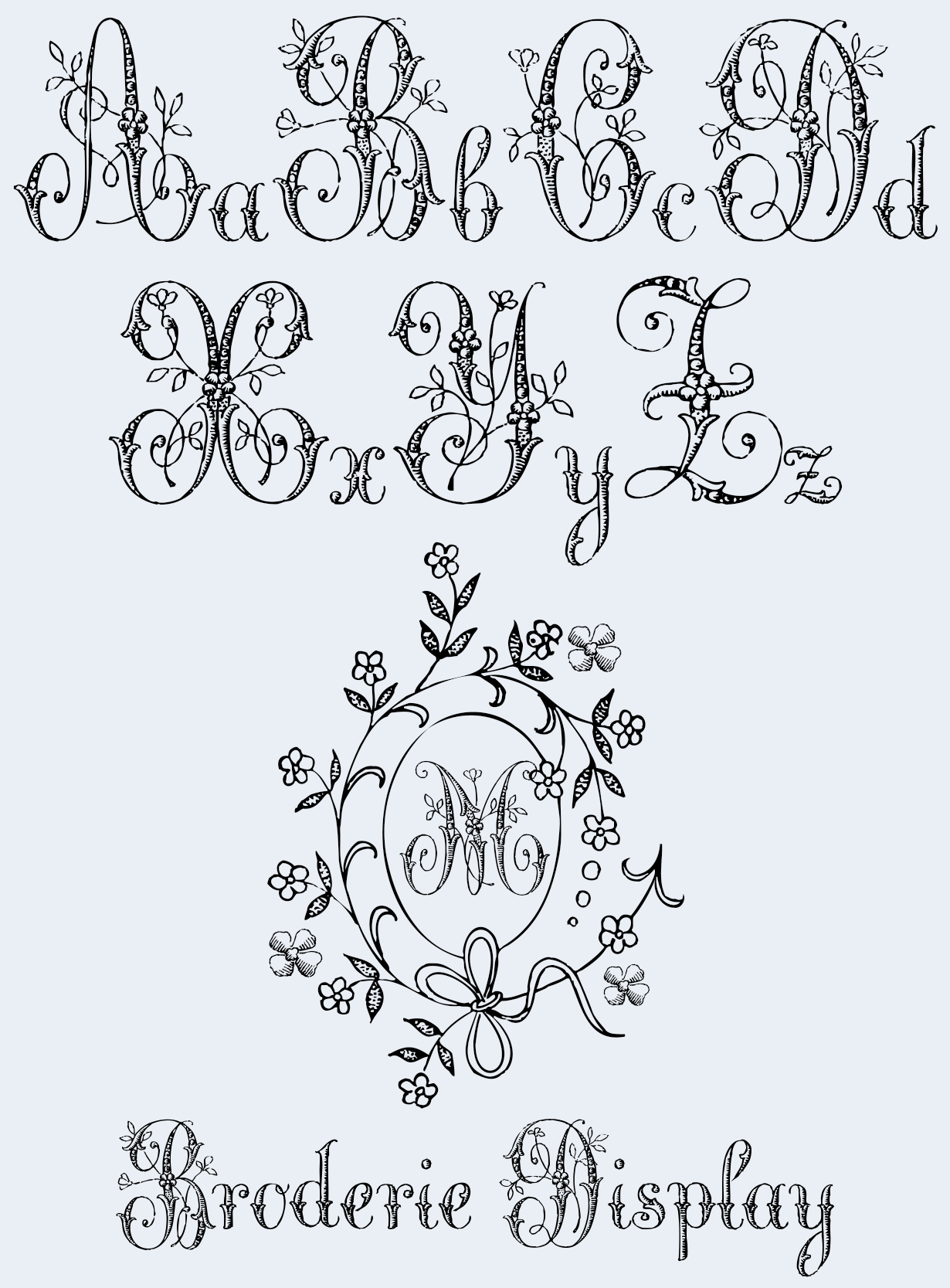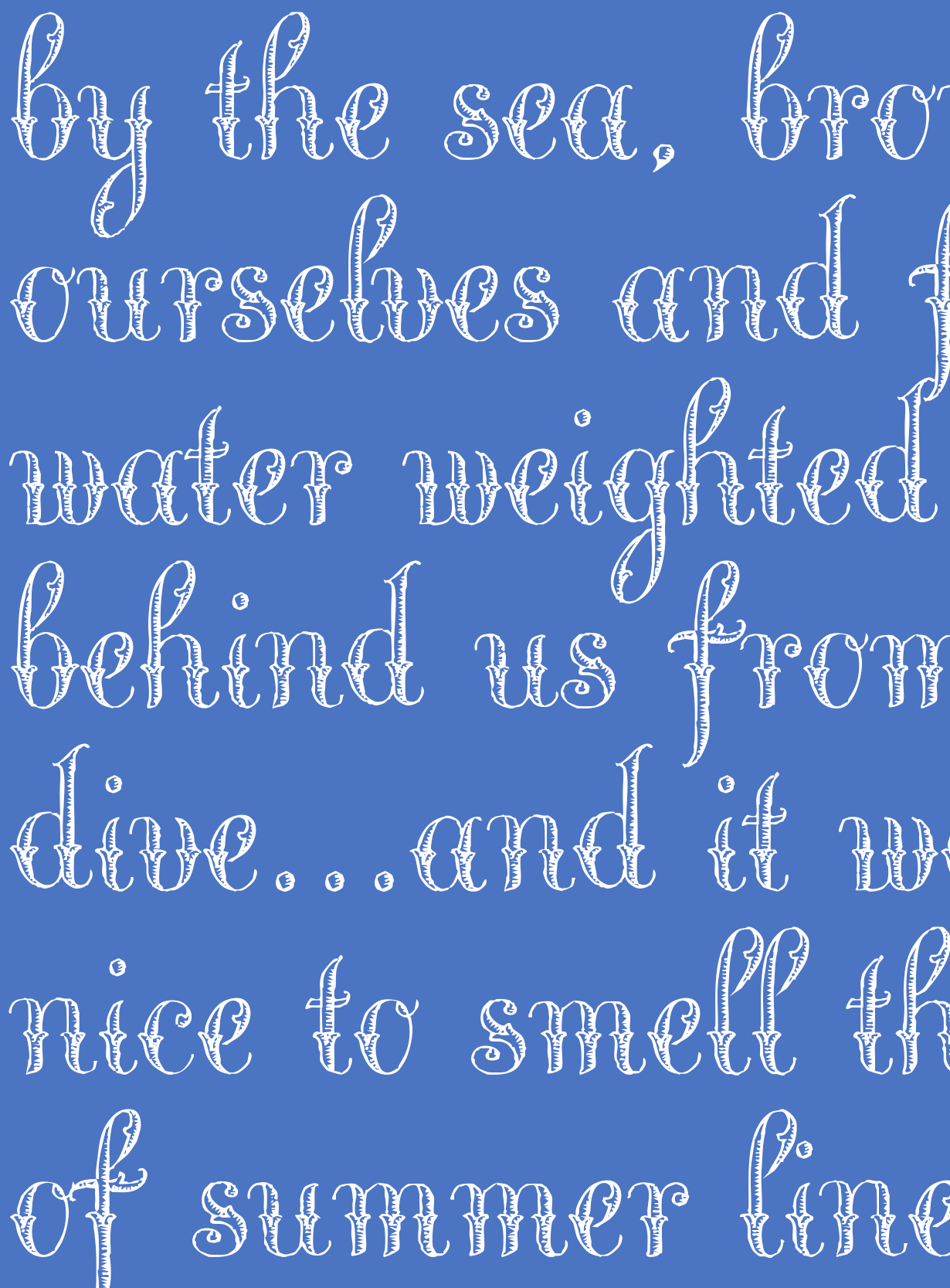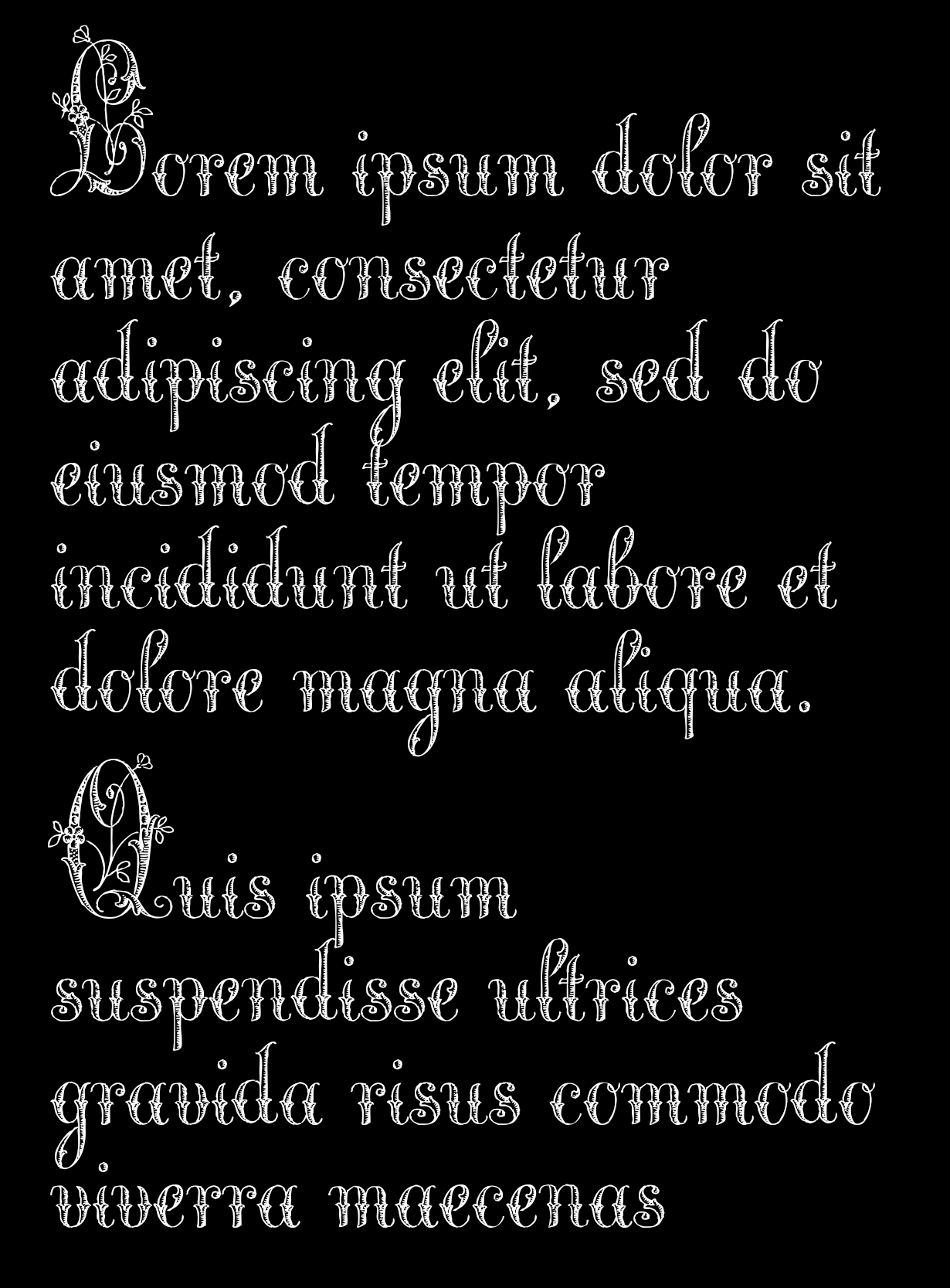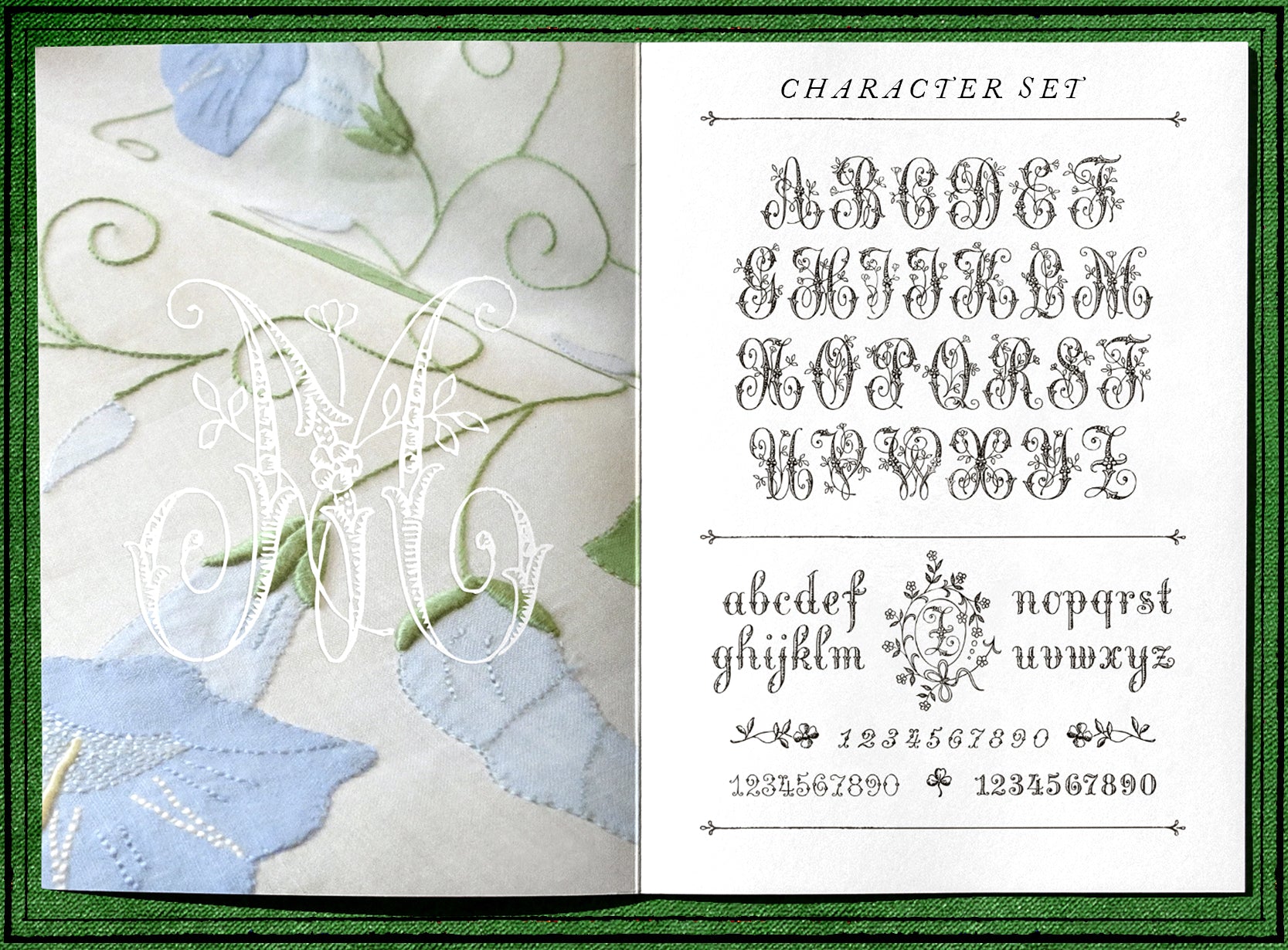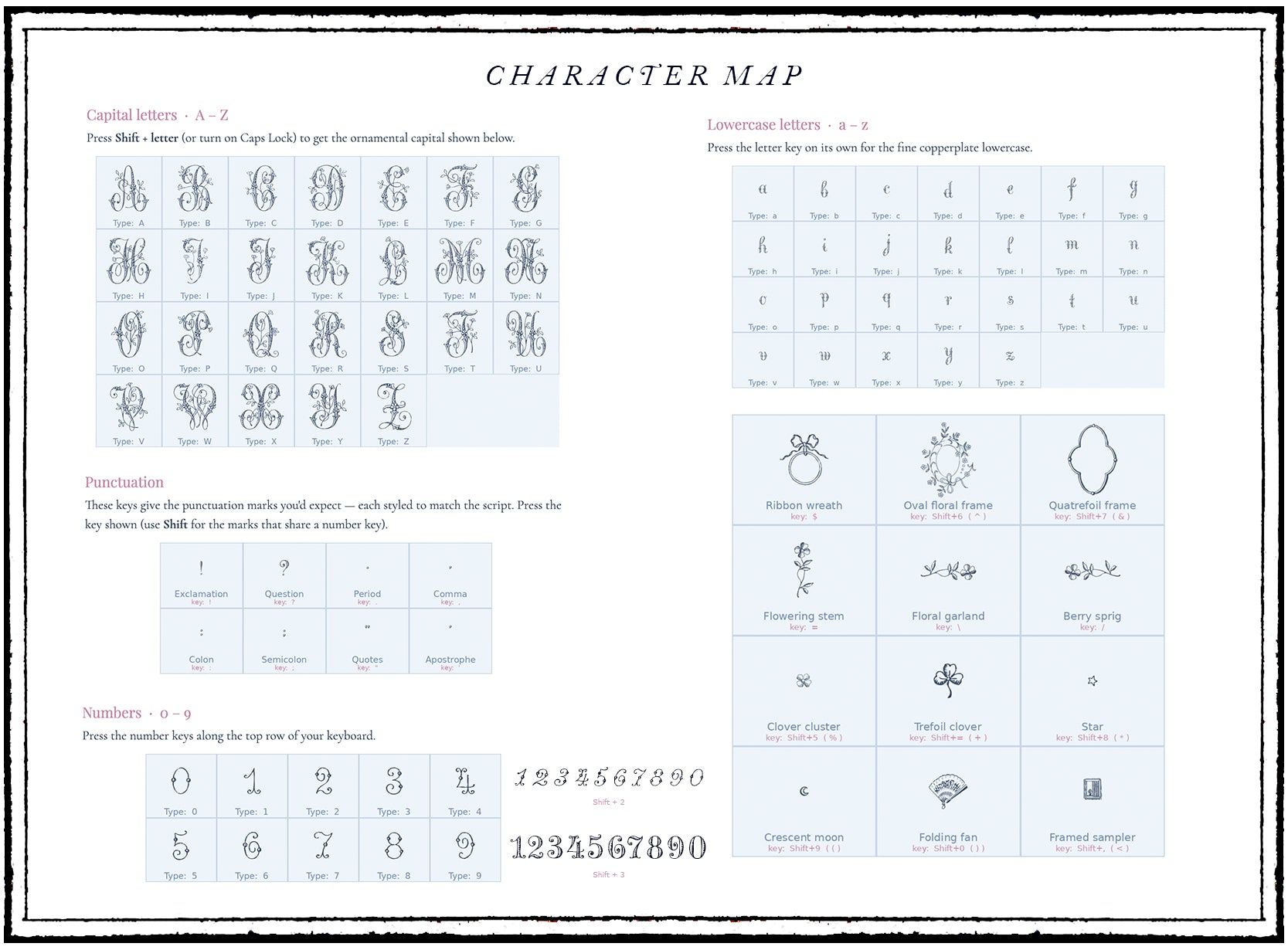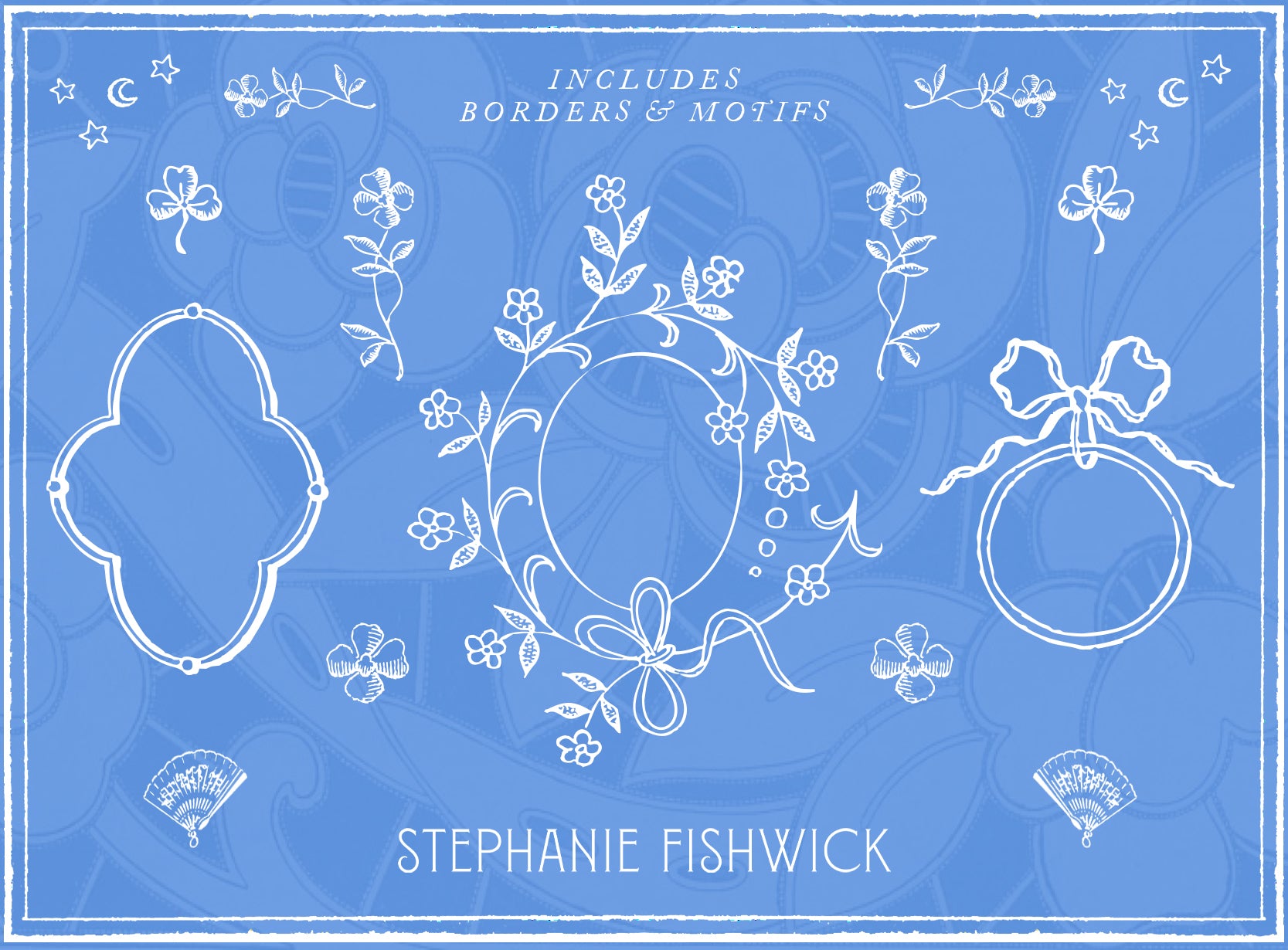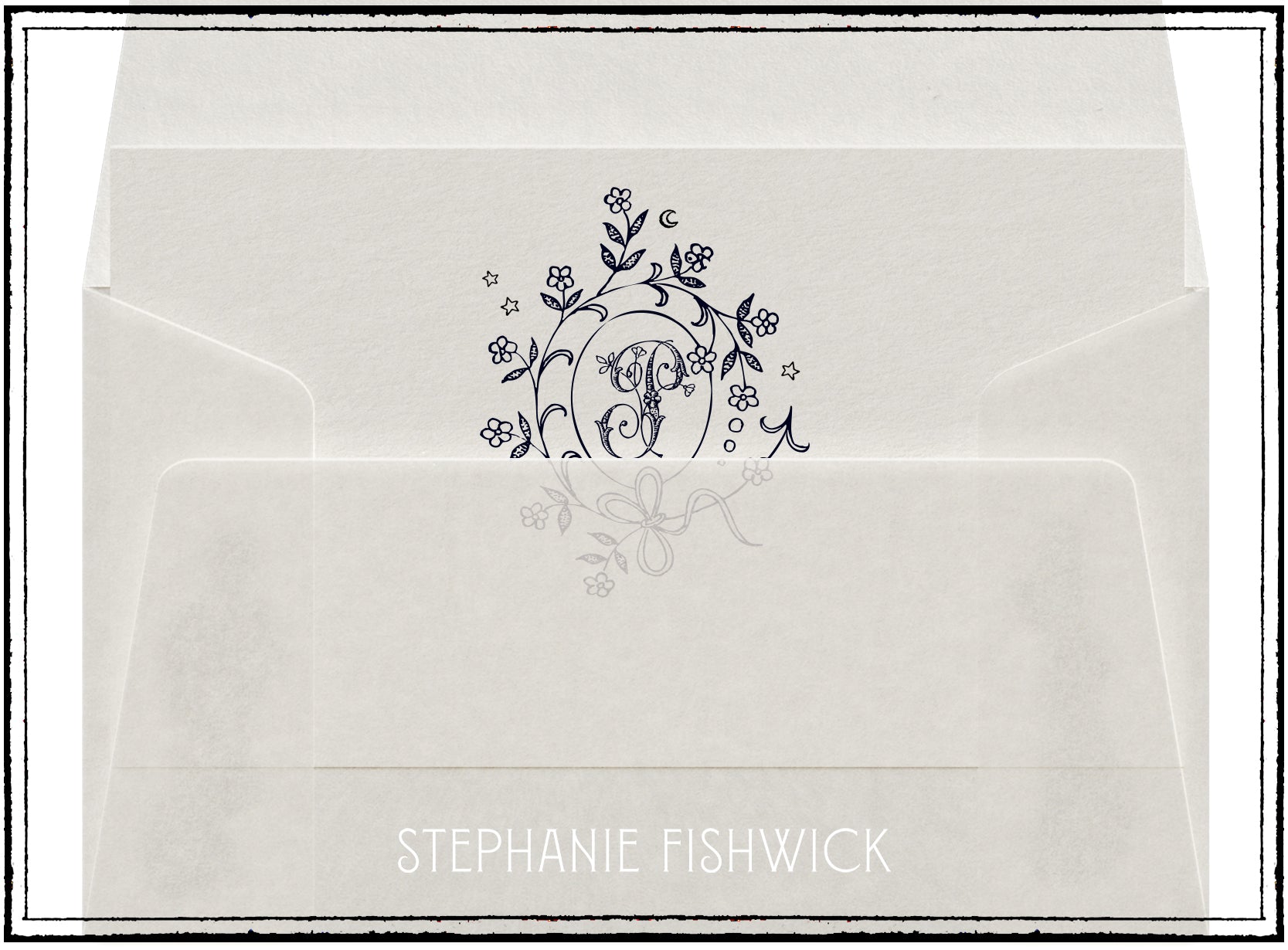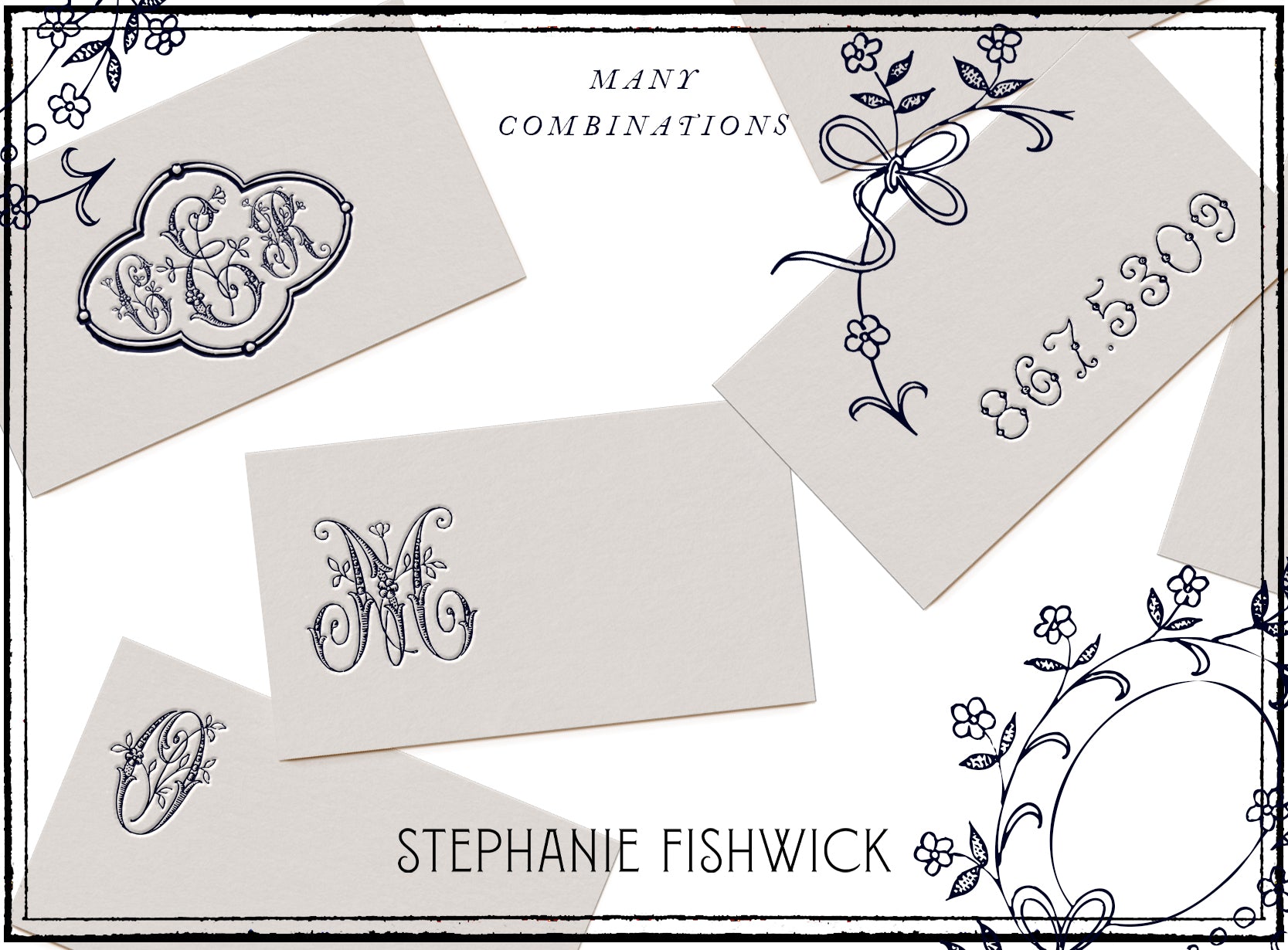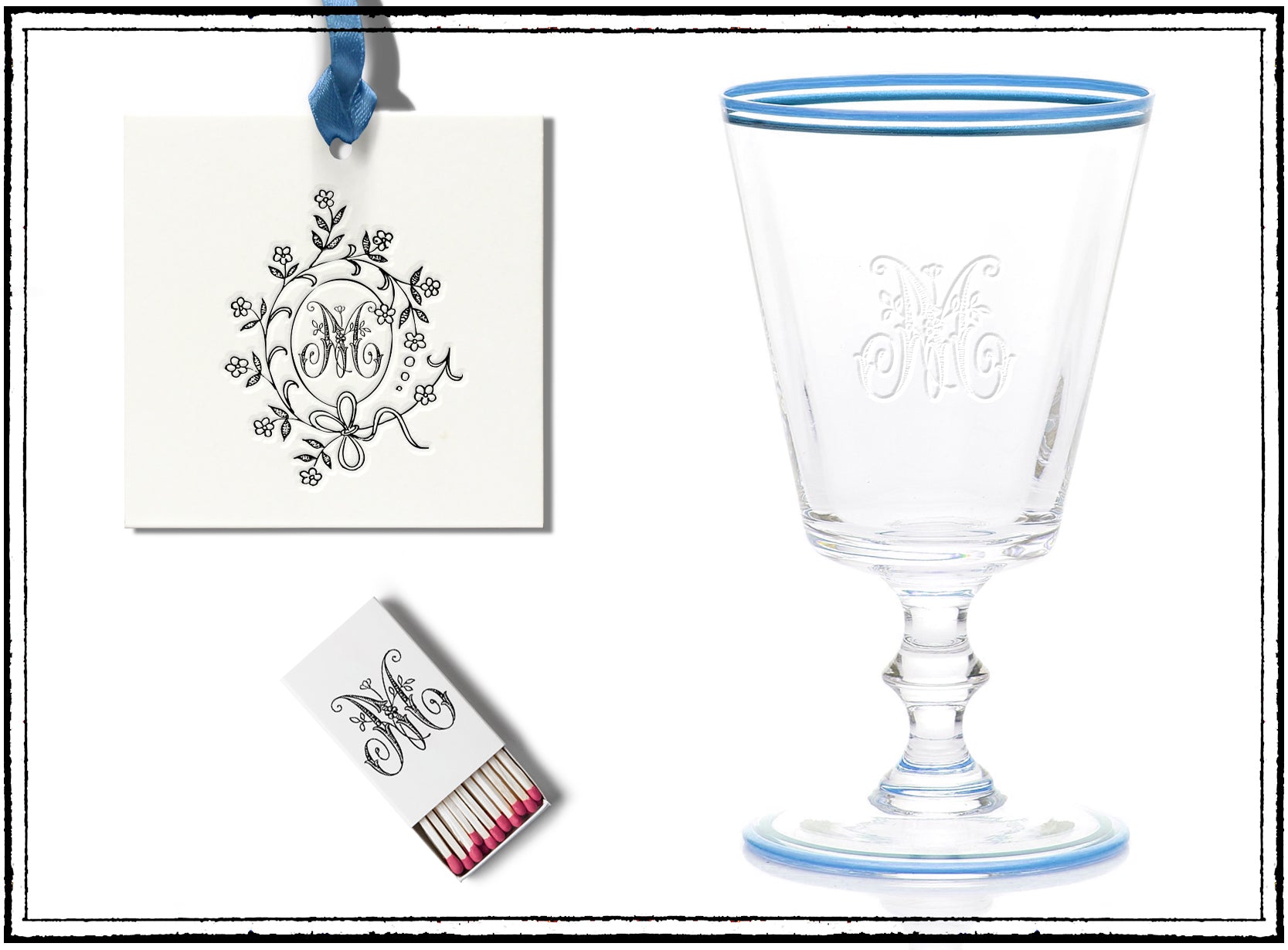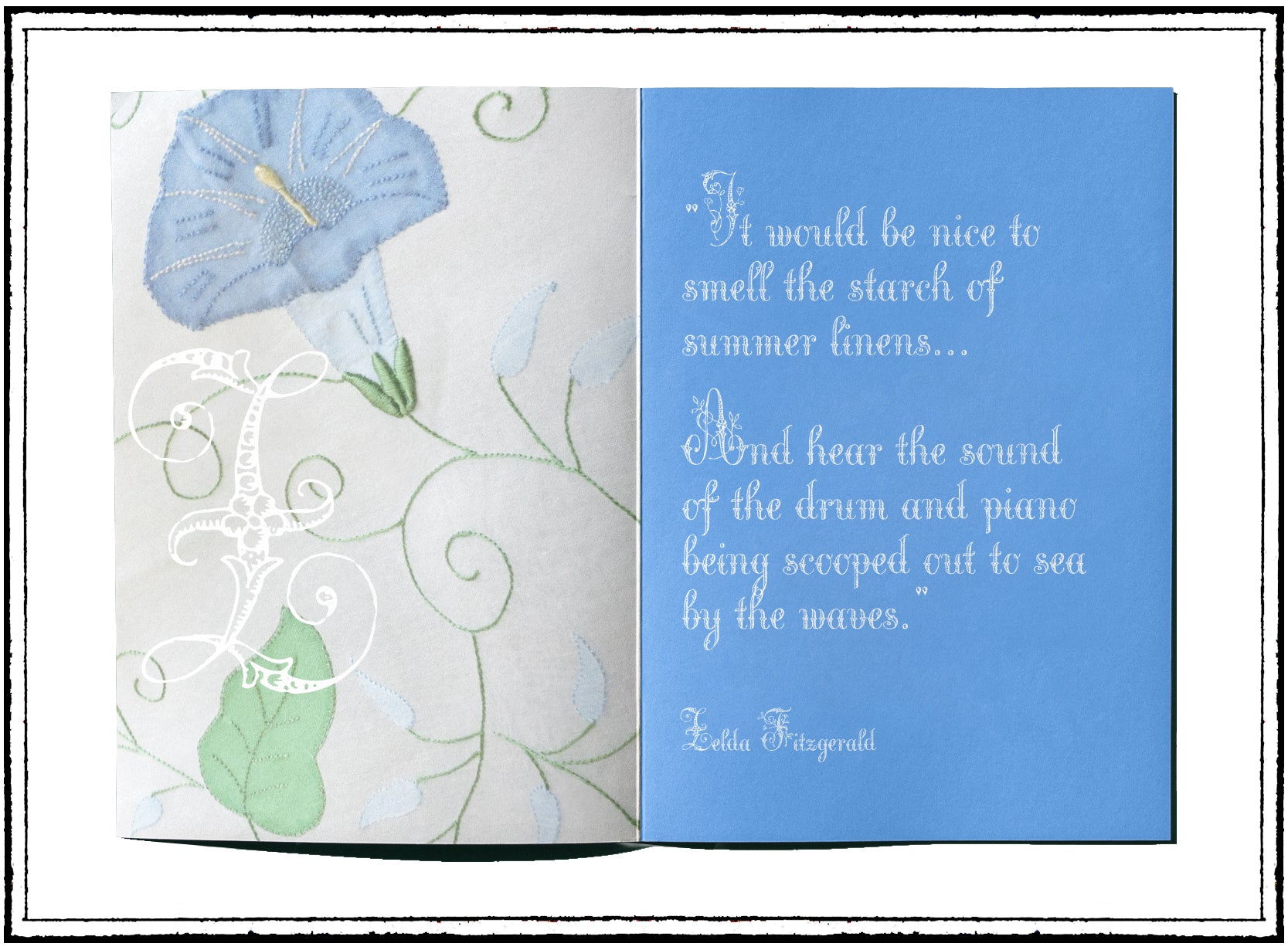
SF Broderie Display
Inspired by Vintage Embroidery
This exquisite font is inspired by an old embroidered, floral alphabet, paired with an engraved copperplate lowercase script. A font Stephanie made especially for monograms, plus a set of decorative ornaments to mix and match. Statement-making grand initials, duograms, wedding crests, and decorative titling all look special in this dreamy font for those who love romantic letters.
Font Details
- Style: Display / decorative — one weight (Regular)
- Best at: Large sizes — 40 pt and up. This is not a body-text font.
- Character set: A–Z, a–z, 0–9, punctuation
- Plus: a set of decorative ornaments — wreath, frames, sprigs, a moon, stars, a fan and extra number sets — tucked onto the symbol keys.